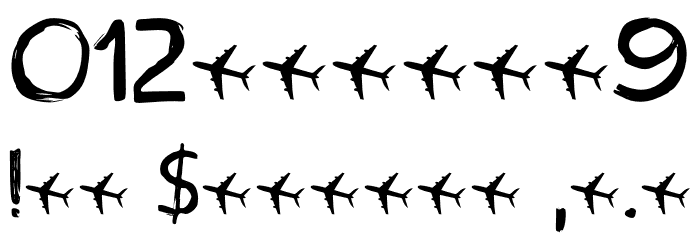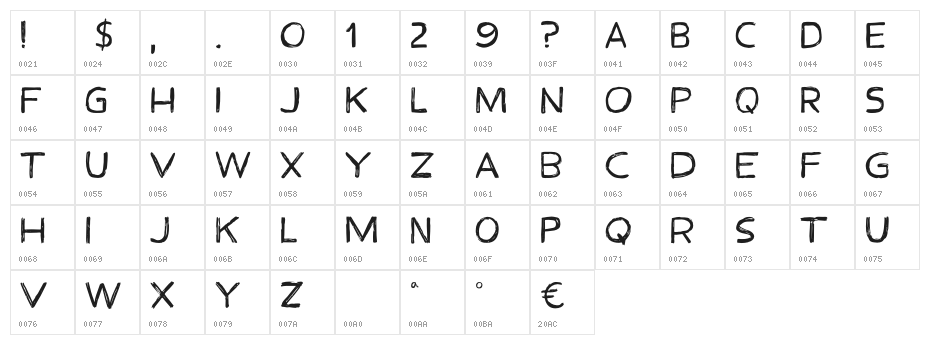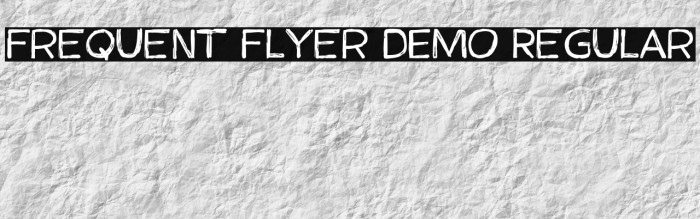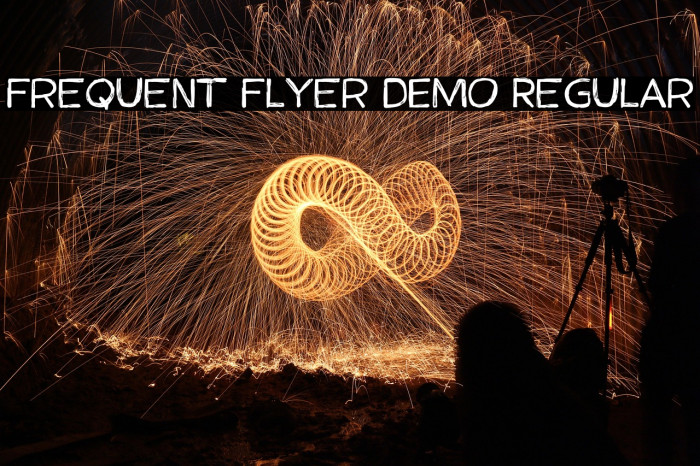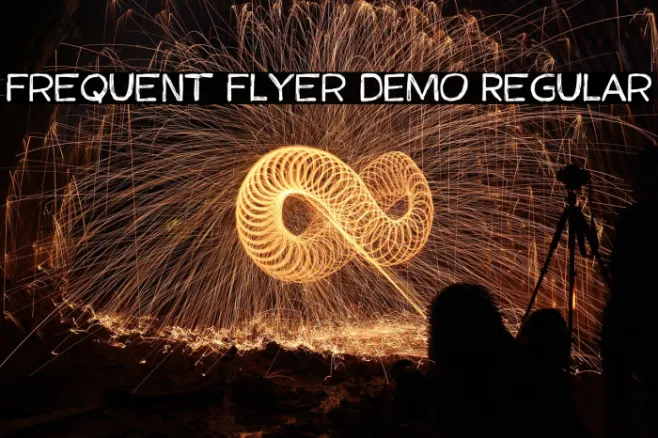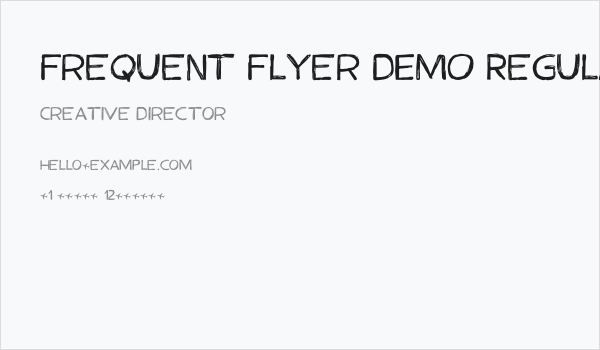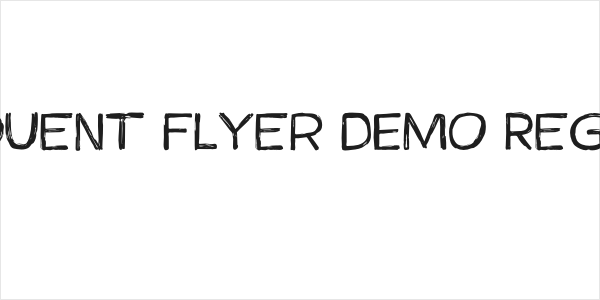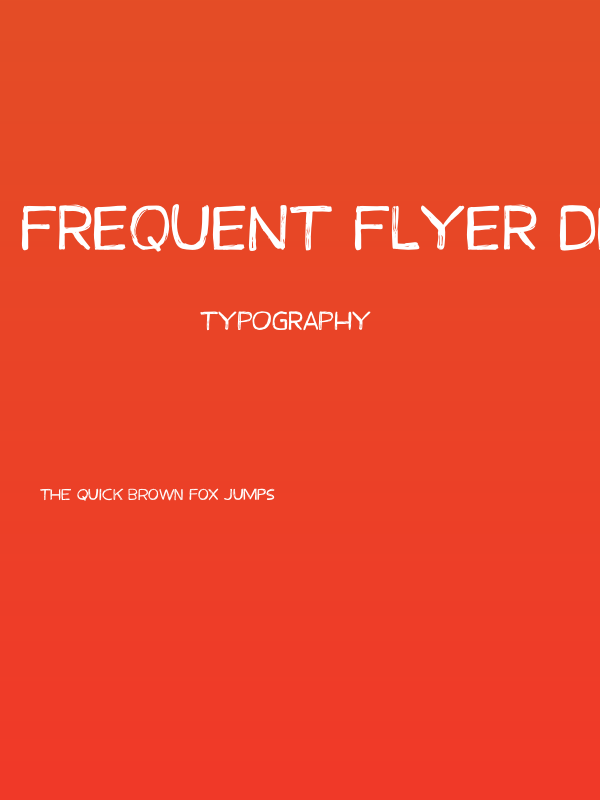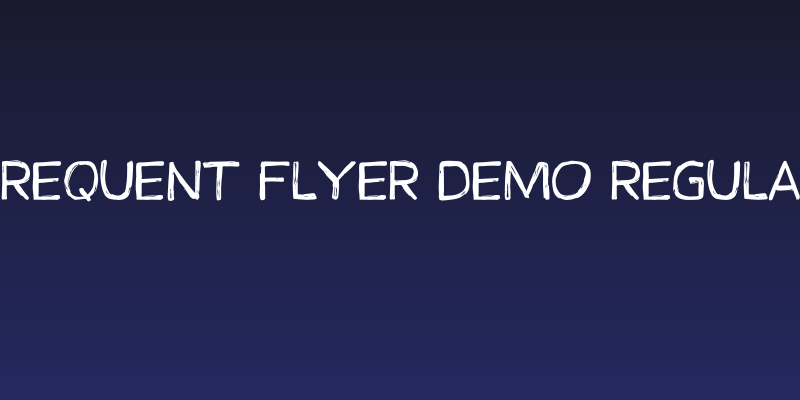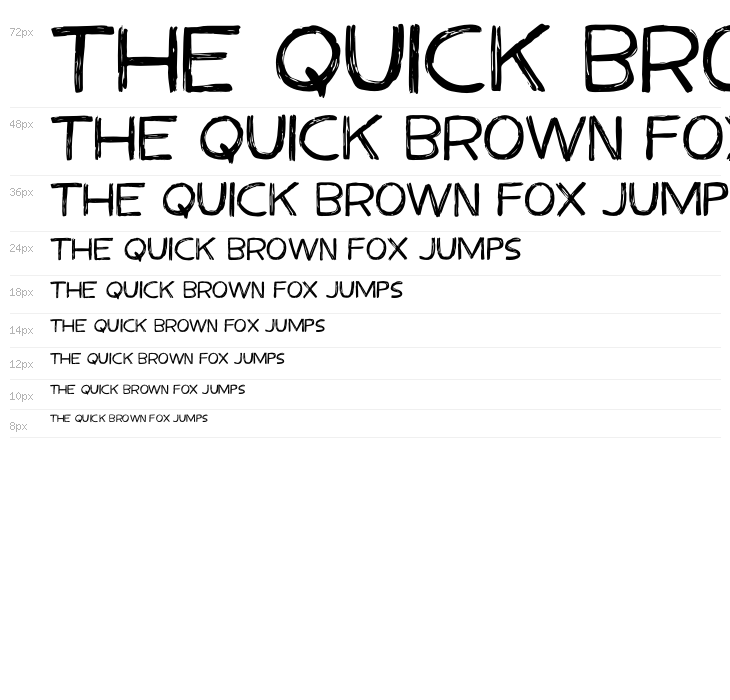
Frequent Flyer DEMO Regular Font
Frequent Flyer DEMO Regular Description
This font features a unique, hand-drawn style that mimics the appearance of brush strokes, giving it a dynamic and artistic feel. The characters are slightly irregular, adding to the handcrafted aesthetic. The uppercase and lowercase letters maintain a consistent style, with bold, expressive lines that vary in thickness, creating a sense of movement and energy. The numerals and special characters follow the same artistic theme, with some characters, like the airplane symbol, adding a playful and thematic touch. This font is ideal for projects that require a creative and informal look, such as posters, flyers, and artistic branding.
| Overall Style | Artistic, Handcrafted |
| Use Case | Headlines, Logos, Artistic projects |
| Proposed Projects | Ideal for creative projects like posters, flyers, artistic branding, and themed designs. |